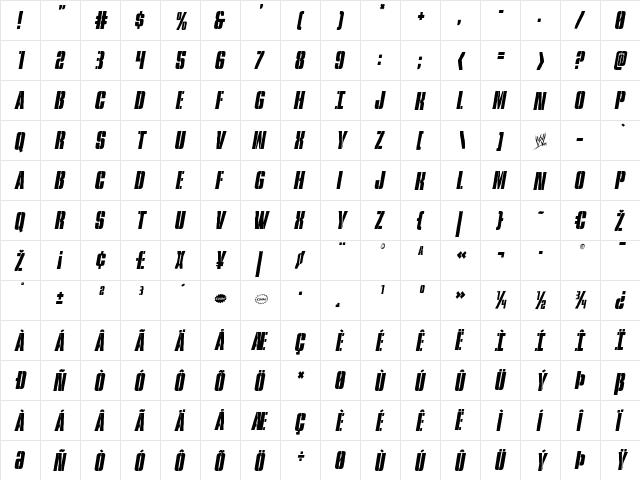
Rumble Tumble Condensed Italic Condensed Italic
Design Context for Rumble Tumble Condensed Italic Typeface
Rumble Tumble Condensed Italic is a composed and adaptable typeface that performs quietly and consistently across a wide range of design contexts. The slanted form adds forward momentum and visual energy. Its narrow stance lets it pack a punch even in space-constrained designs.
Pro Tip: Use Rumble Tumble Condensed Italic for emphasis, pull quotes, and subheadings where its slanted energy can add rhythm to the layout.